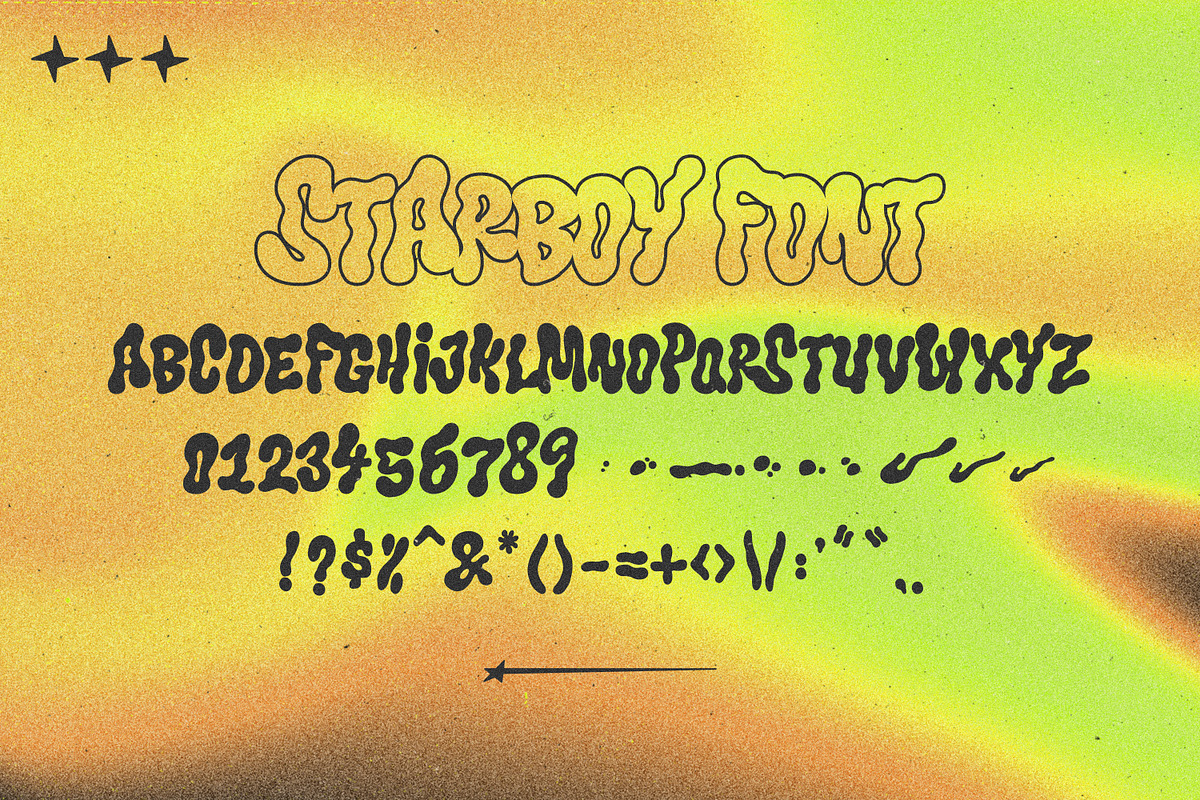
Starboy is a fun, bubbly, unique, graffiti-inspired font. Starboy is perfect for all large display text and is versatile with any san serif fonts to mix & match! No special software is required to use Starboy Brush.